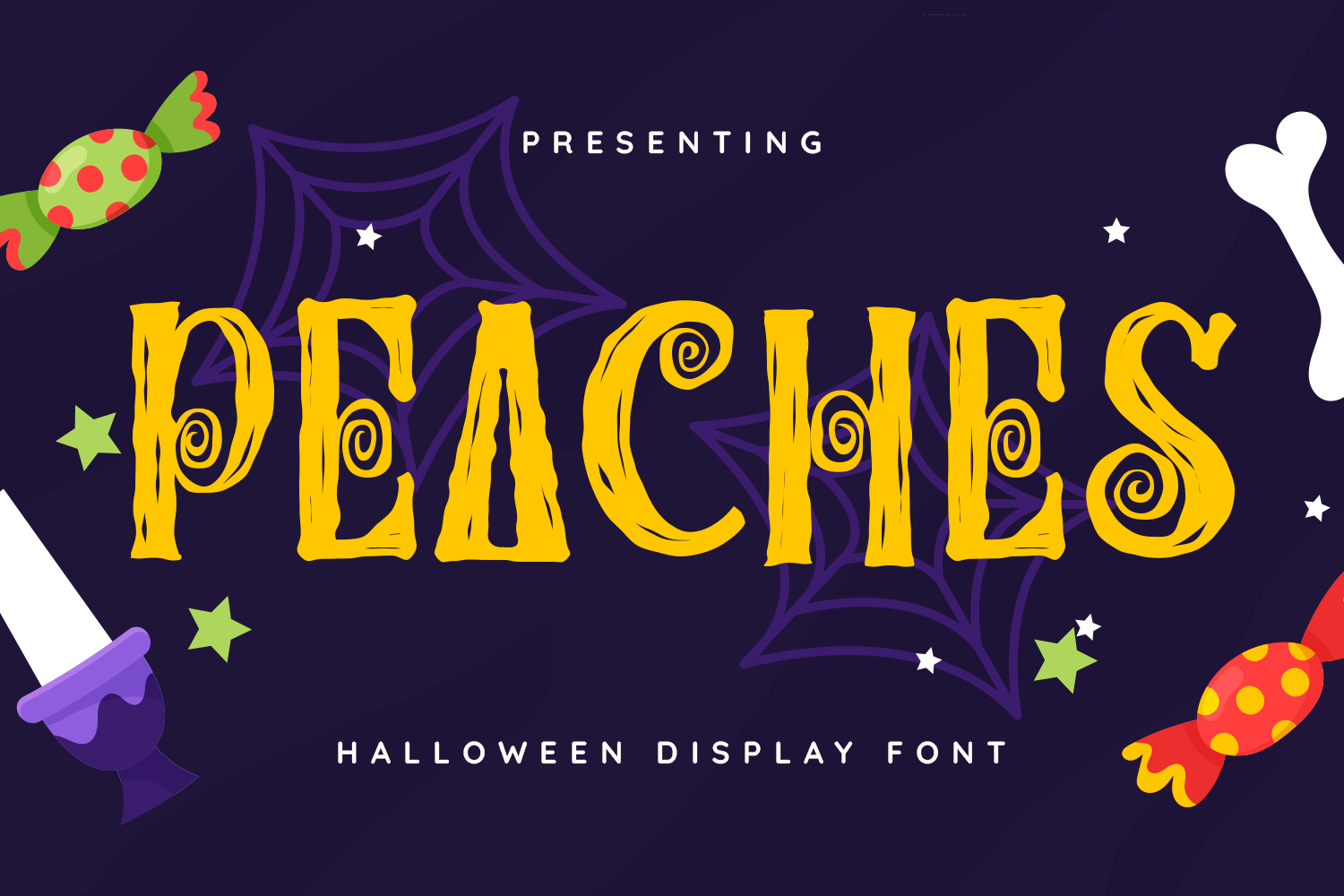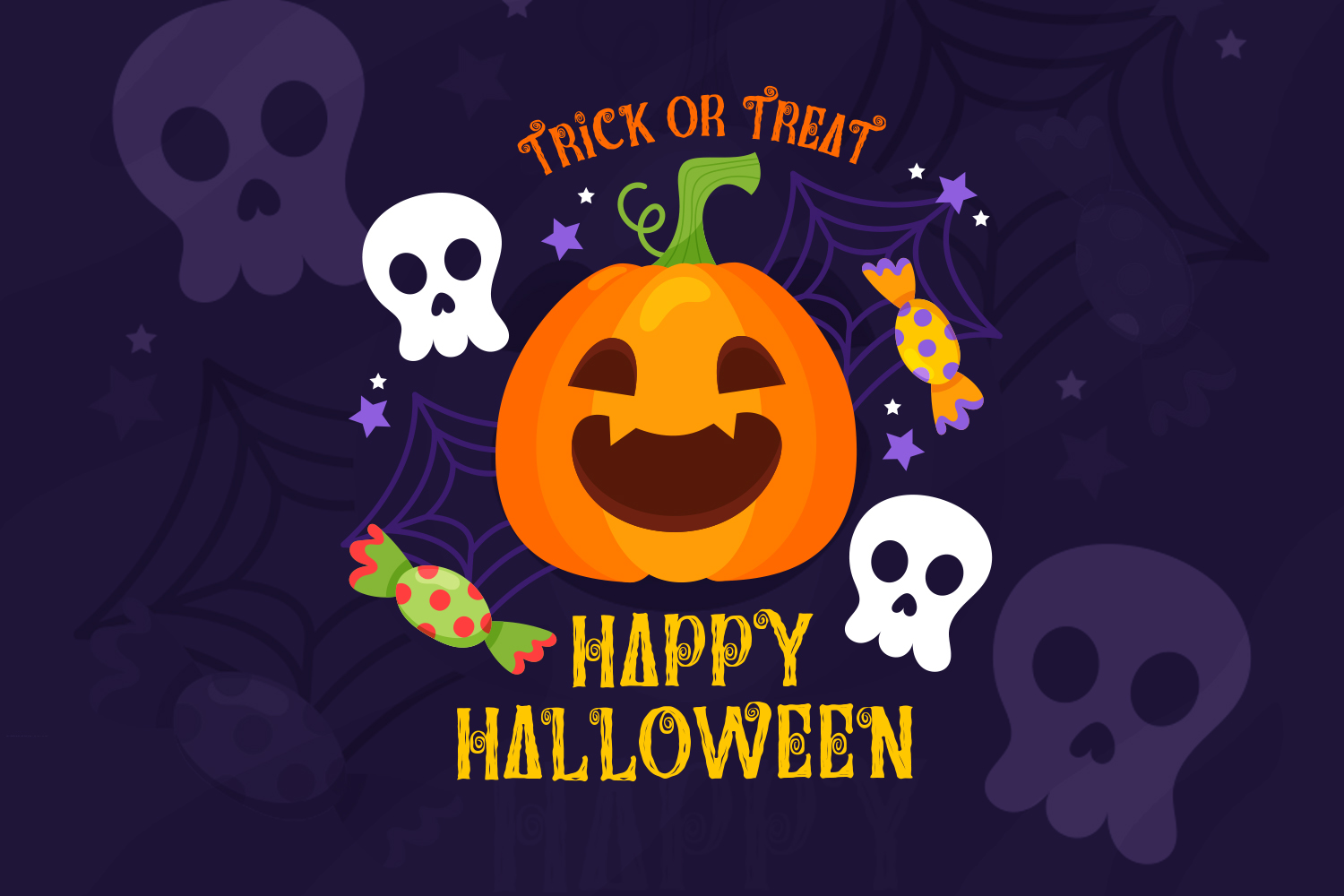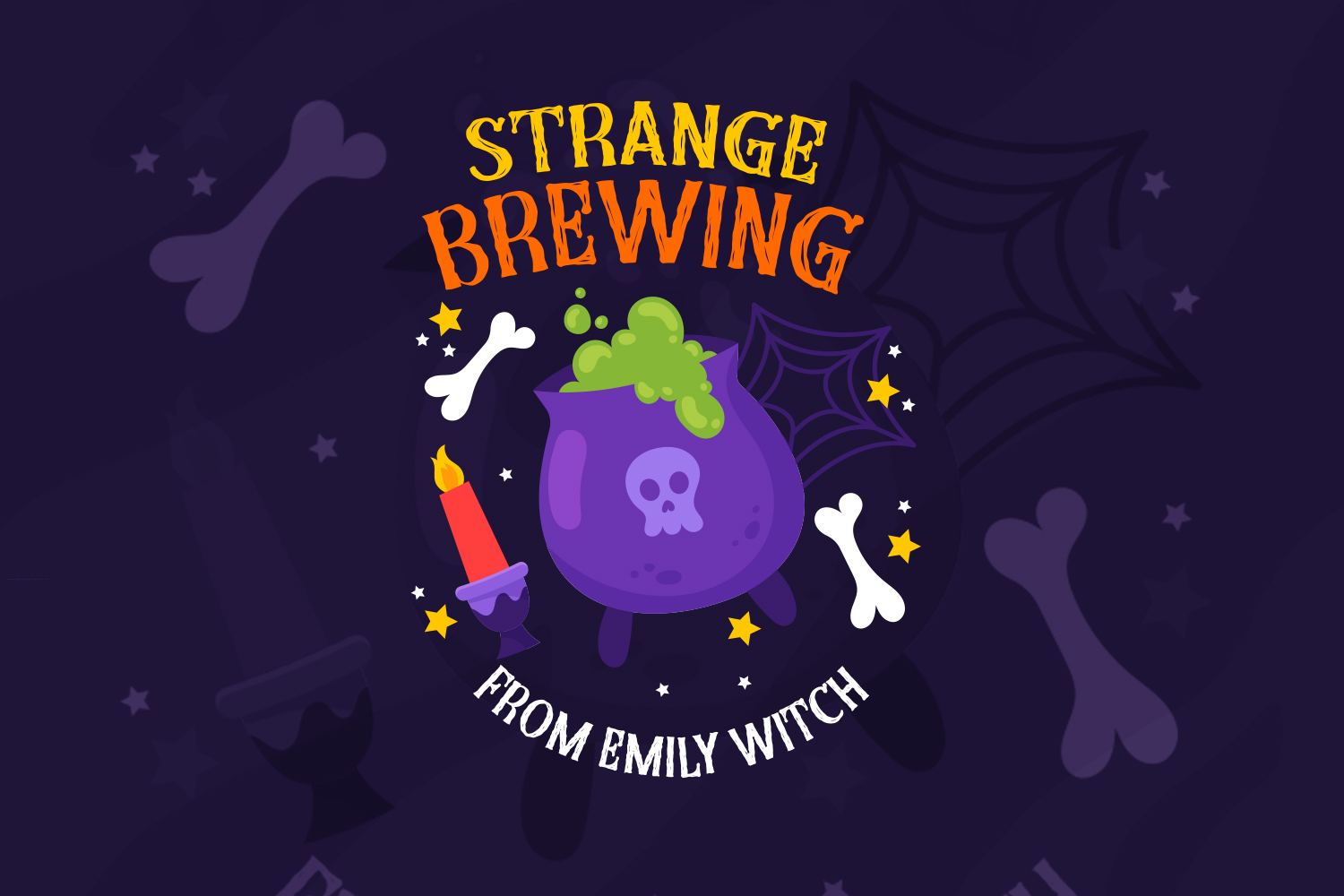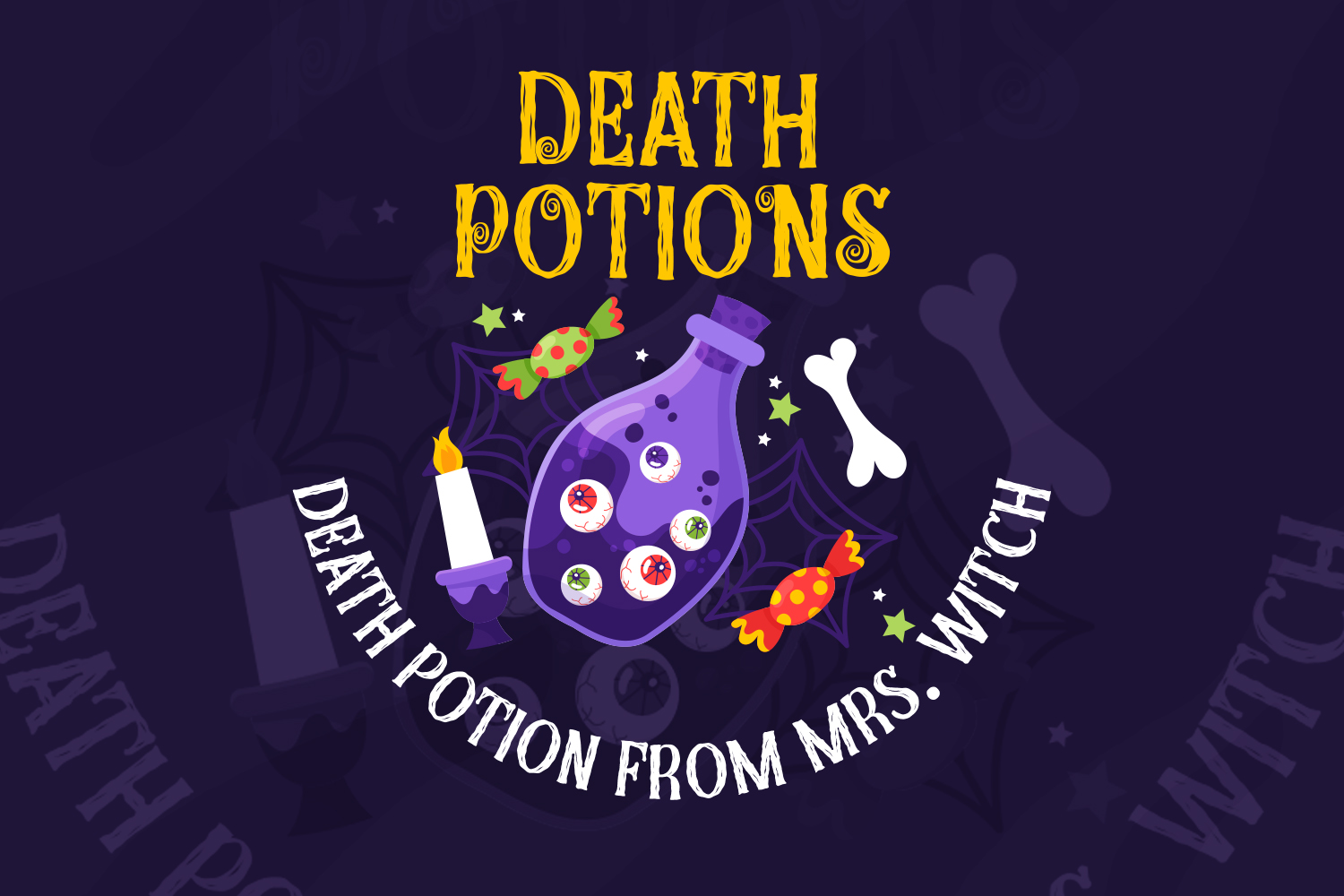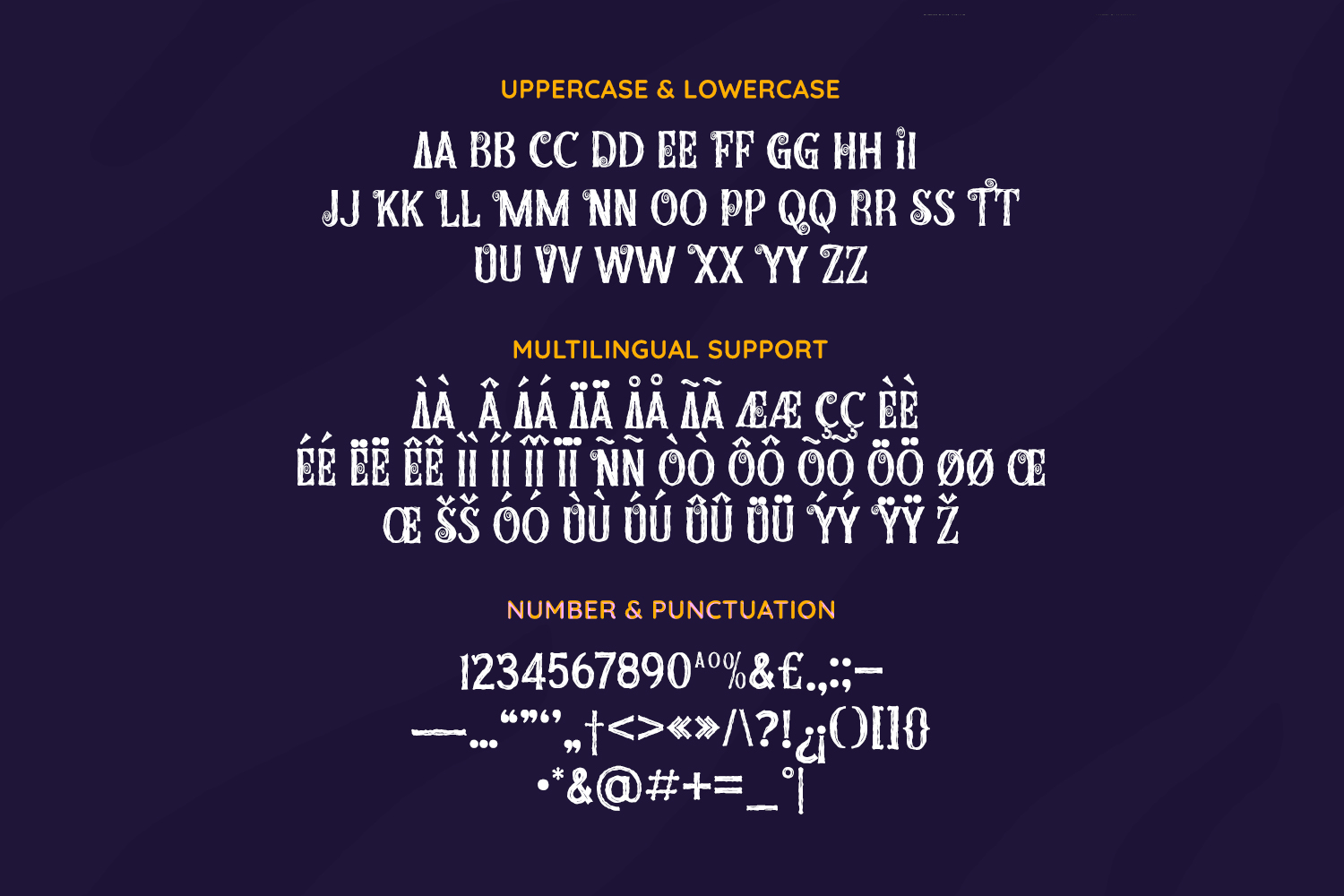
Peaches is a fun and spooky Halloween display font that combines chunky letterforms with whimsical spiral details, making it perfect for festive, kid-friendly designs. Its playful vibe and hand-drawn look make it an excellent choice for Halloween party posters, trick-or-treat packaging, themed merchandise, and more. Whether you’re designing with candy, pumpkins, or ghosts in mind, Peaches brings joyful eeriness to the spotlight.
The font includes uppercase and lowercase characters, multilingual support, punctuation, and numbers. With its decorative charm and easy readability, Peaches is ideal for both print and digital projects that aim to capture the spirit of Halloween with a fun, light-hearted twist.
Peaches